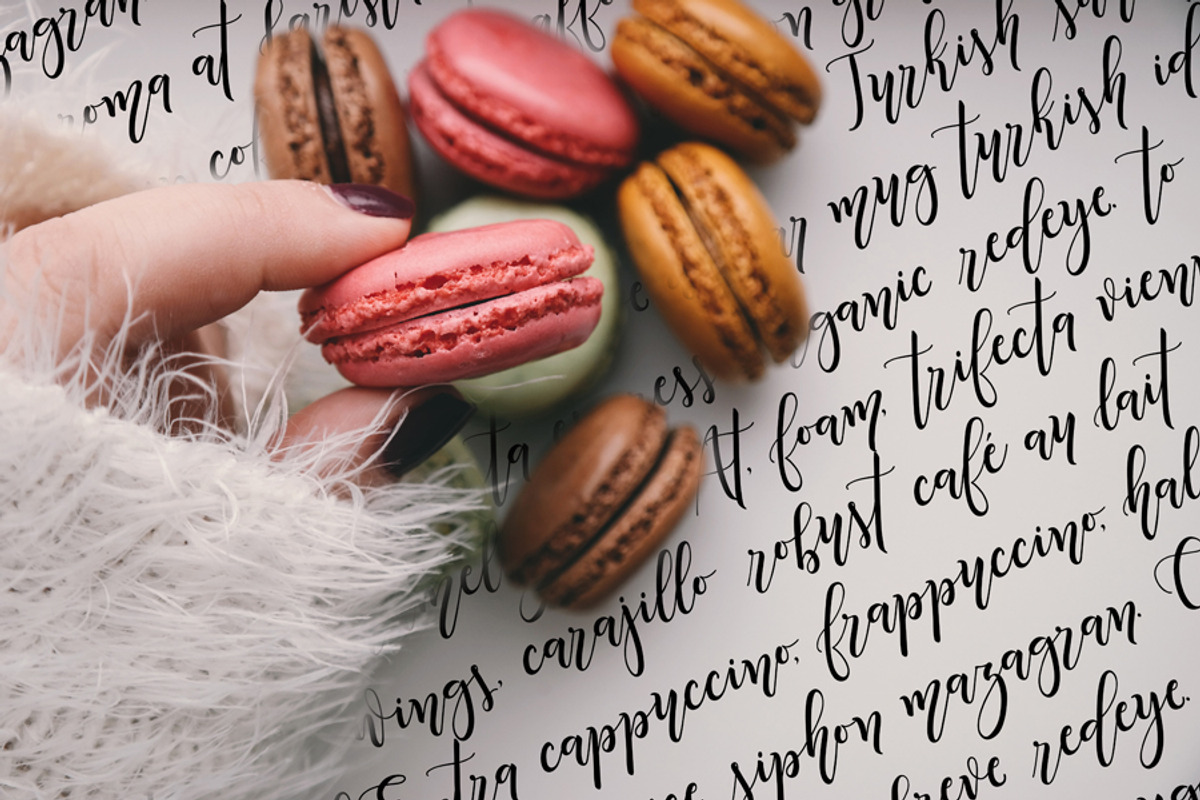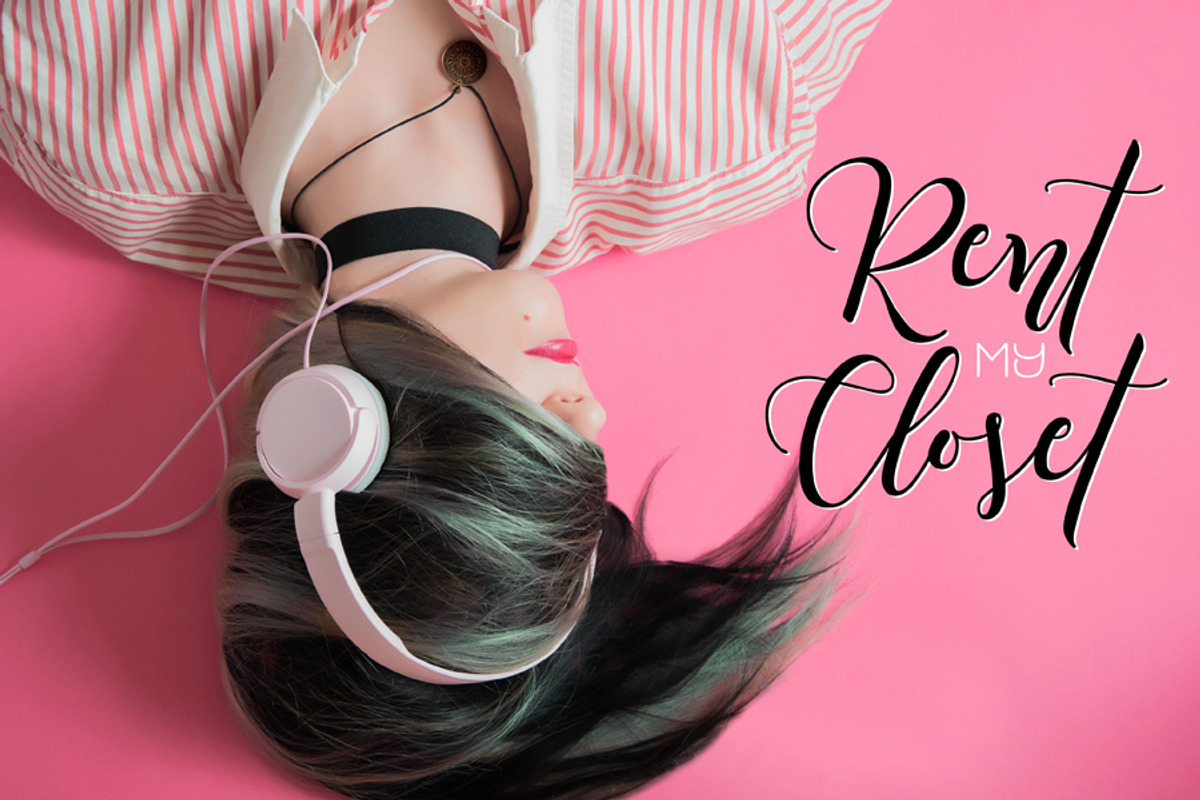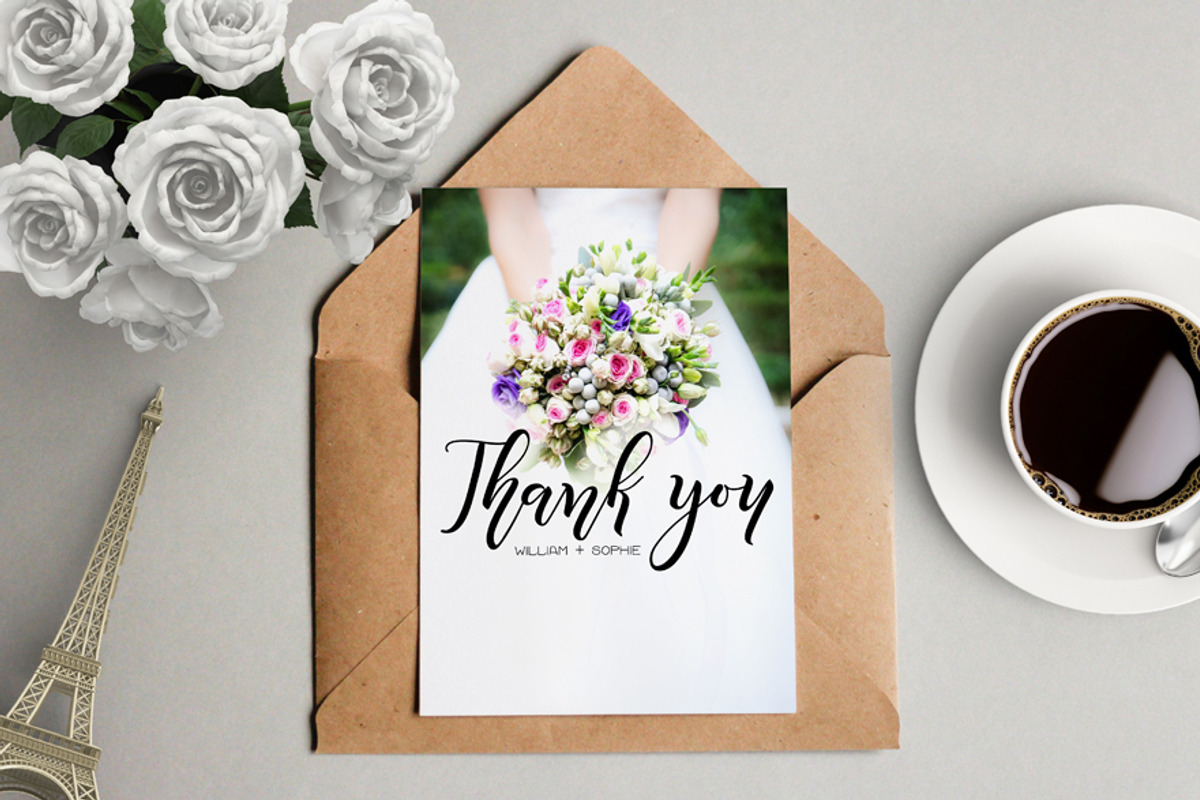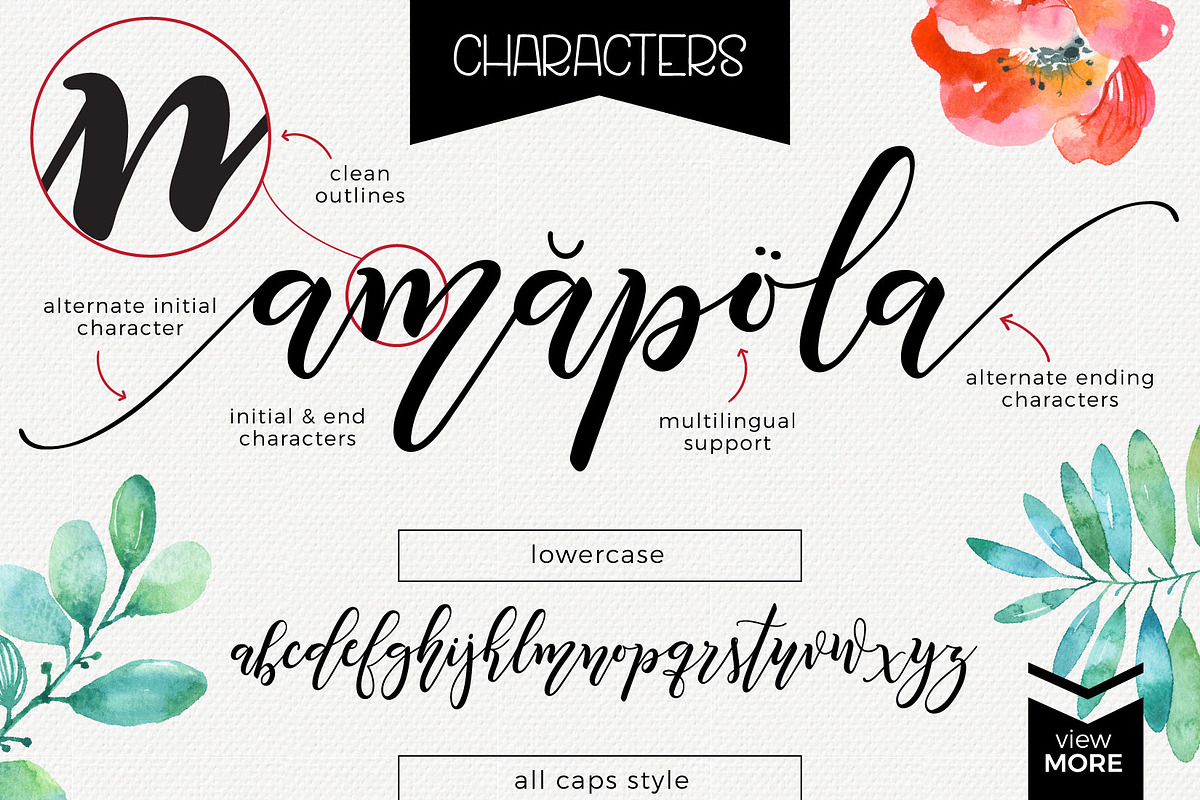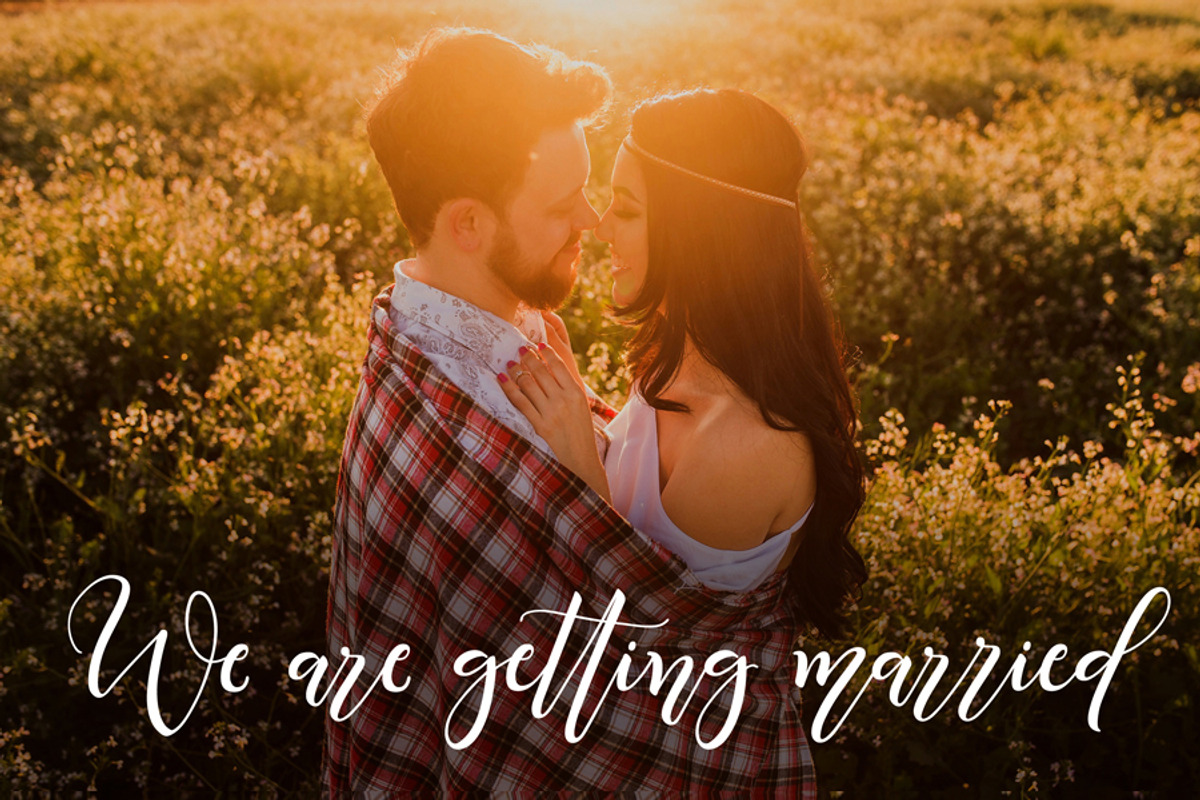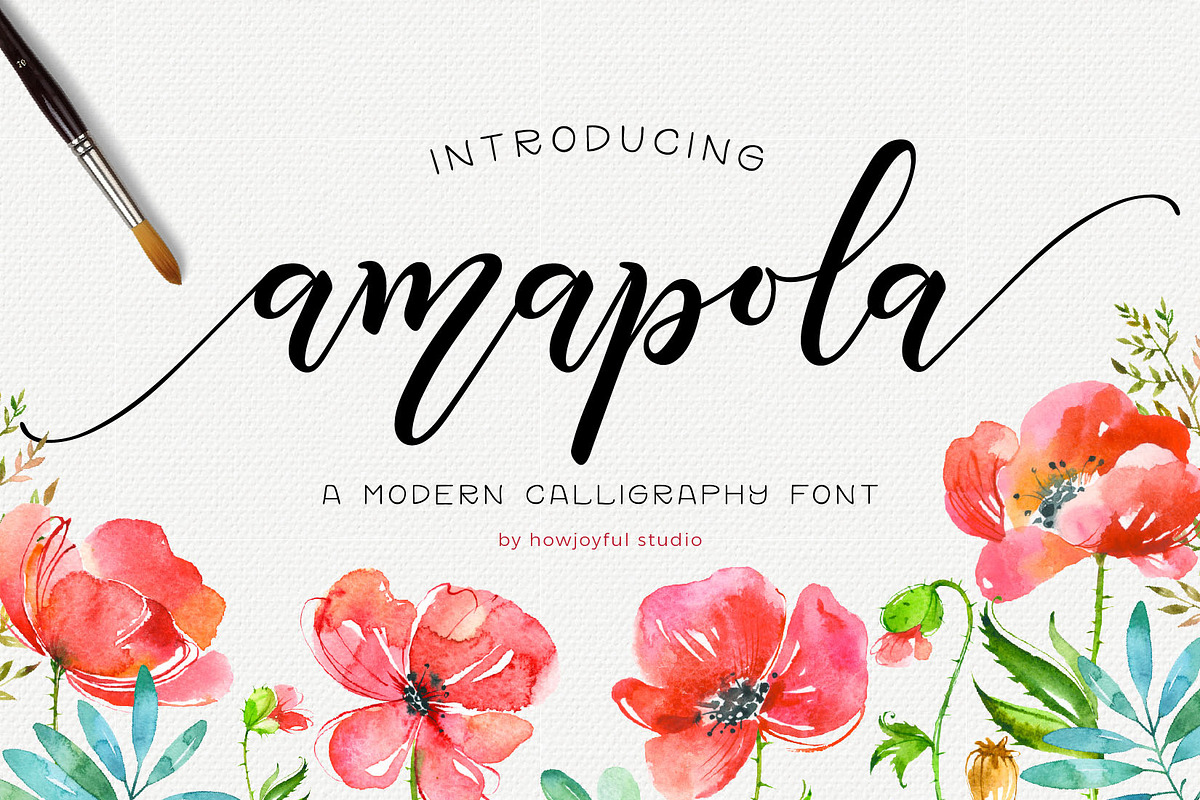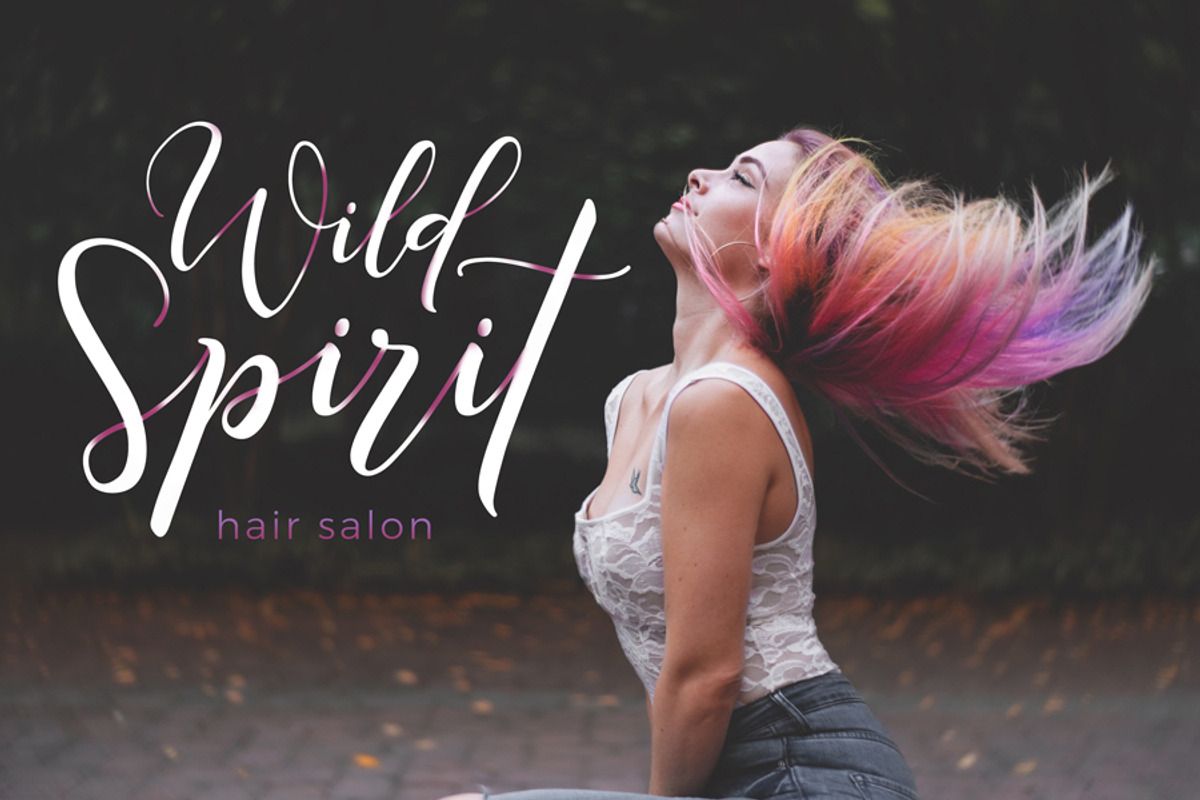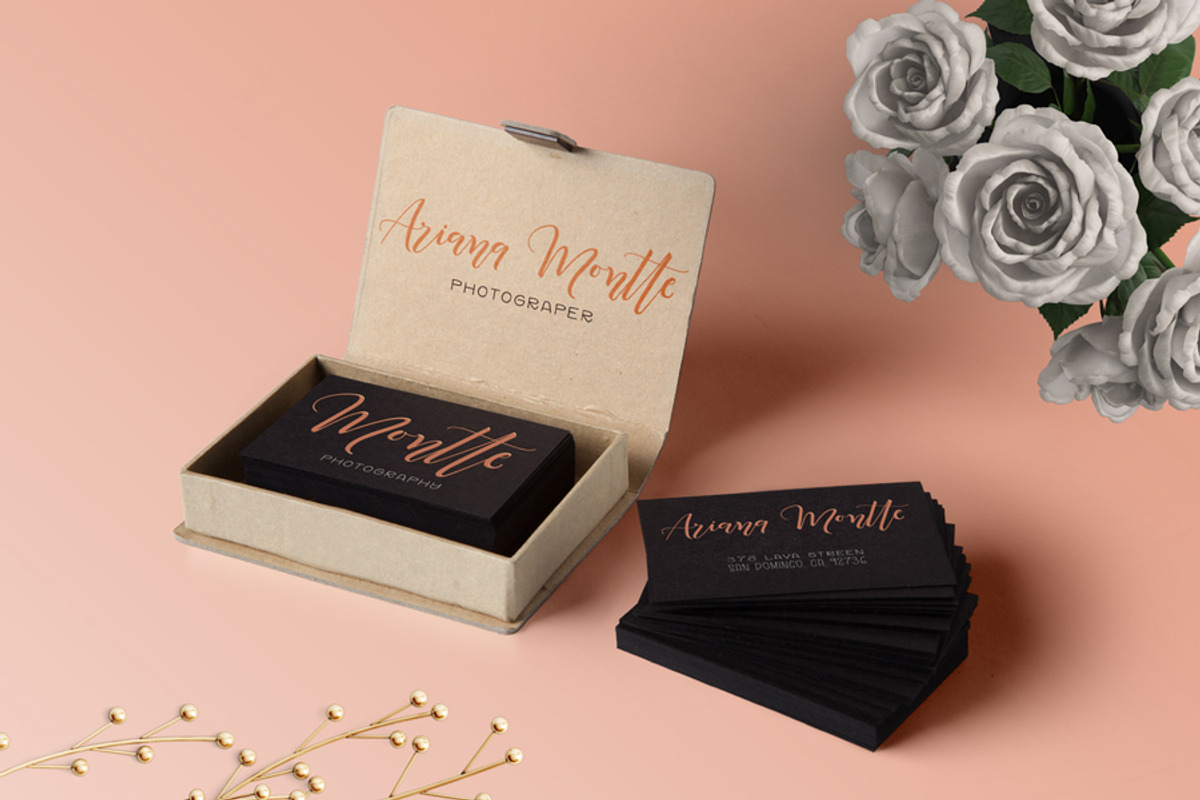
Amapola script font
Amapola script font by HowJoyful is a font selected for branding, posters, packaging, typography.
- Perfect to add an extra touch to your branding, or special project What's Included?
- stylistic alternates, initial and end characters, swashes, and ligatures
Why Amapola script font is worth a look
Amapola script font by HowJoyful fits naturally into Branding, posters, packaging, typography.